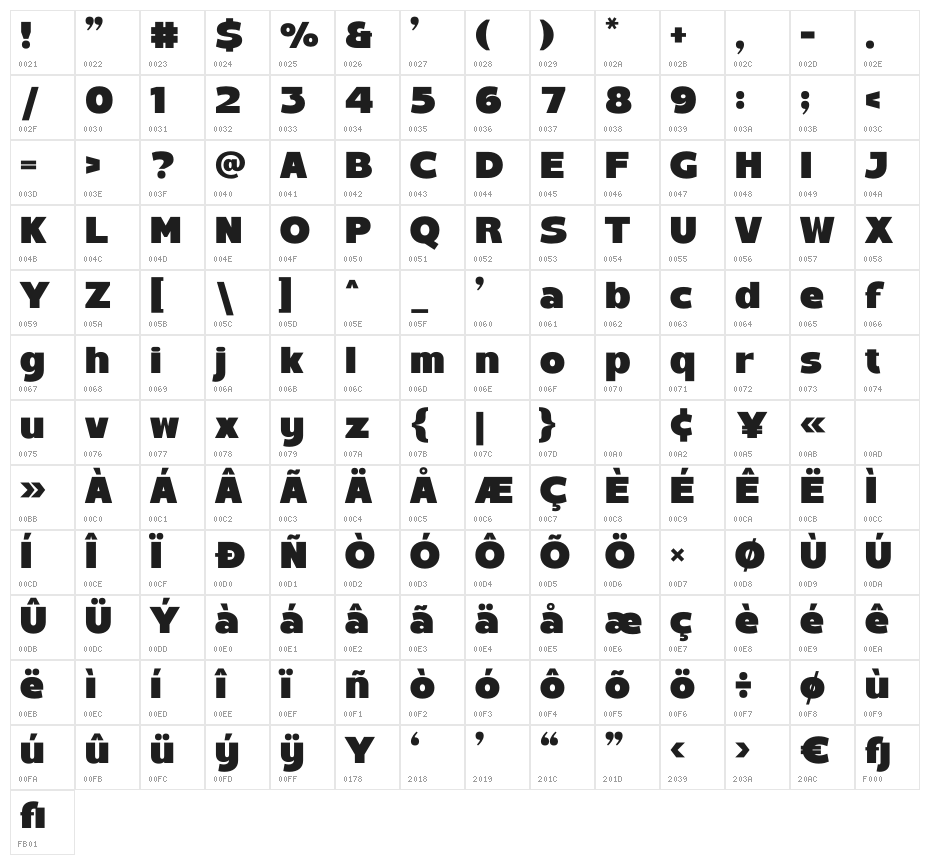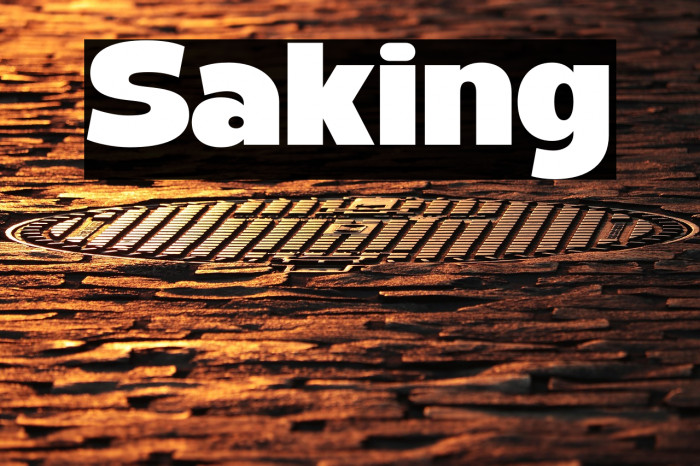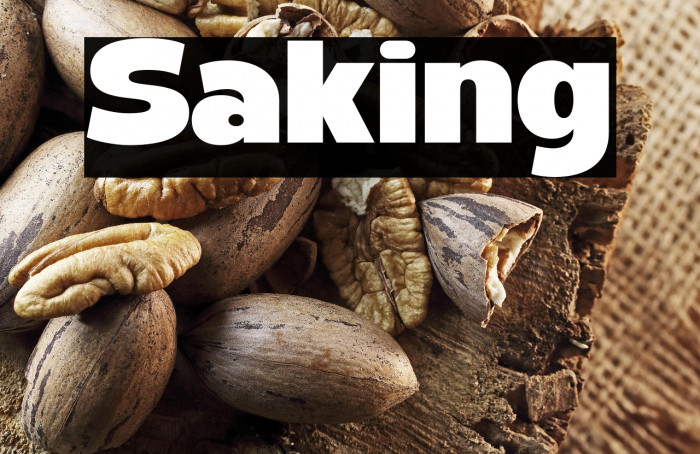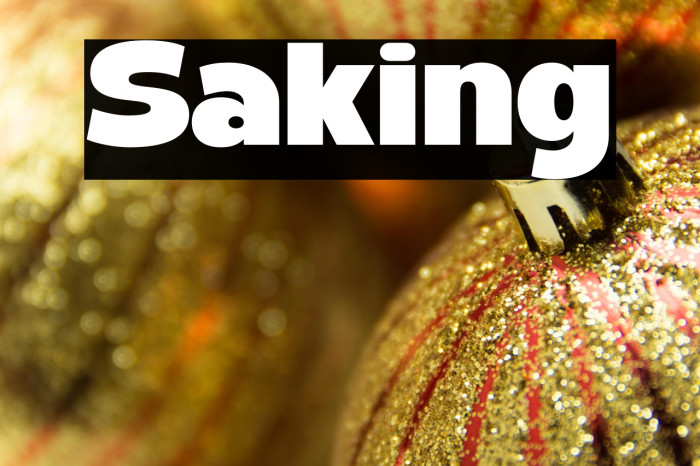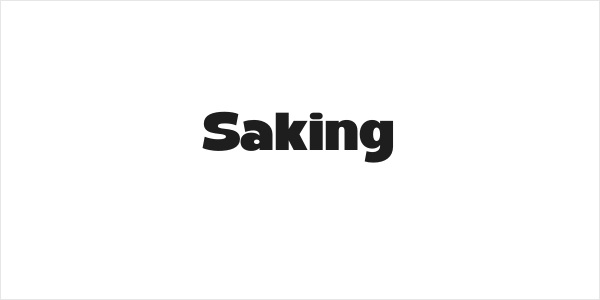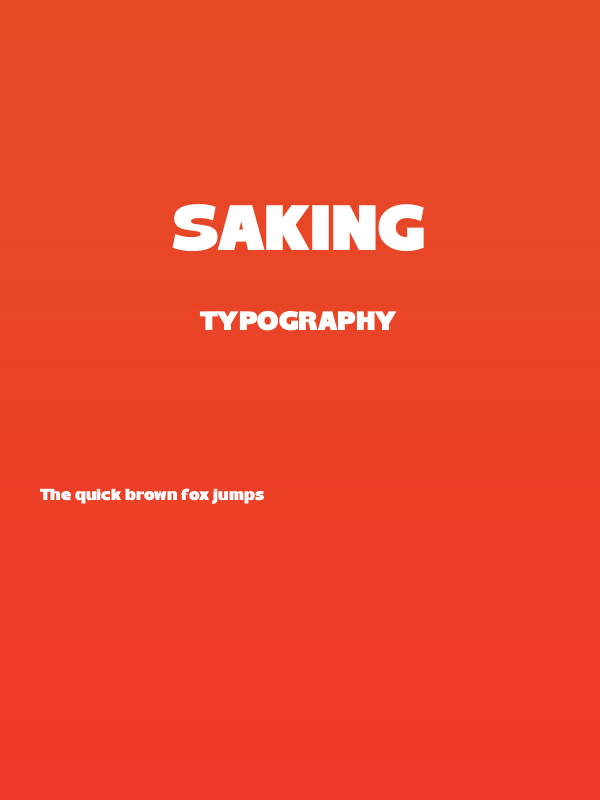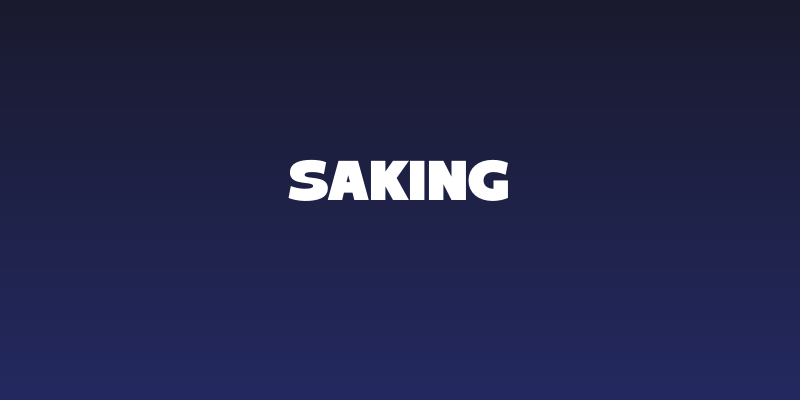
Saking Font
Saking Description
This font is characterized by its bold and impactful appearance, featuring thick, uniform strokes that convey strength and confidence. The characters are well-defined with a modern, sans-serif style that ensures clarity and readability. The uppercase and lowercase letters maintain a consistent weight, providing a cohesive look across all text. The numerals and special characters are equally robust, making them stand out effectively. This font's design is straightforward yet powerful, suitable for making a strong visual statement.
| Proposed Projects | Ideal for branding, advertising, headlines, and posters where a strong, impactful message is needed. |